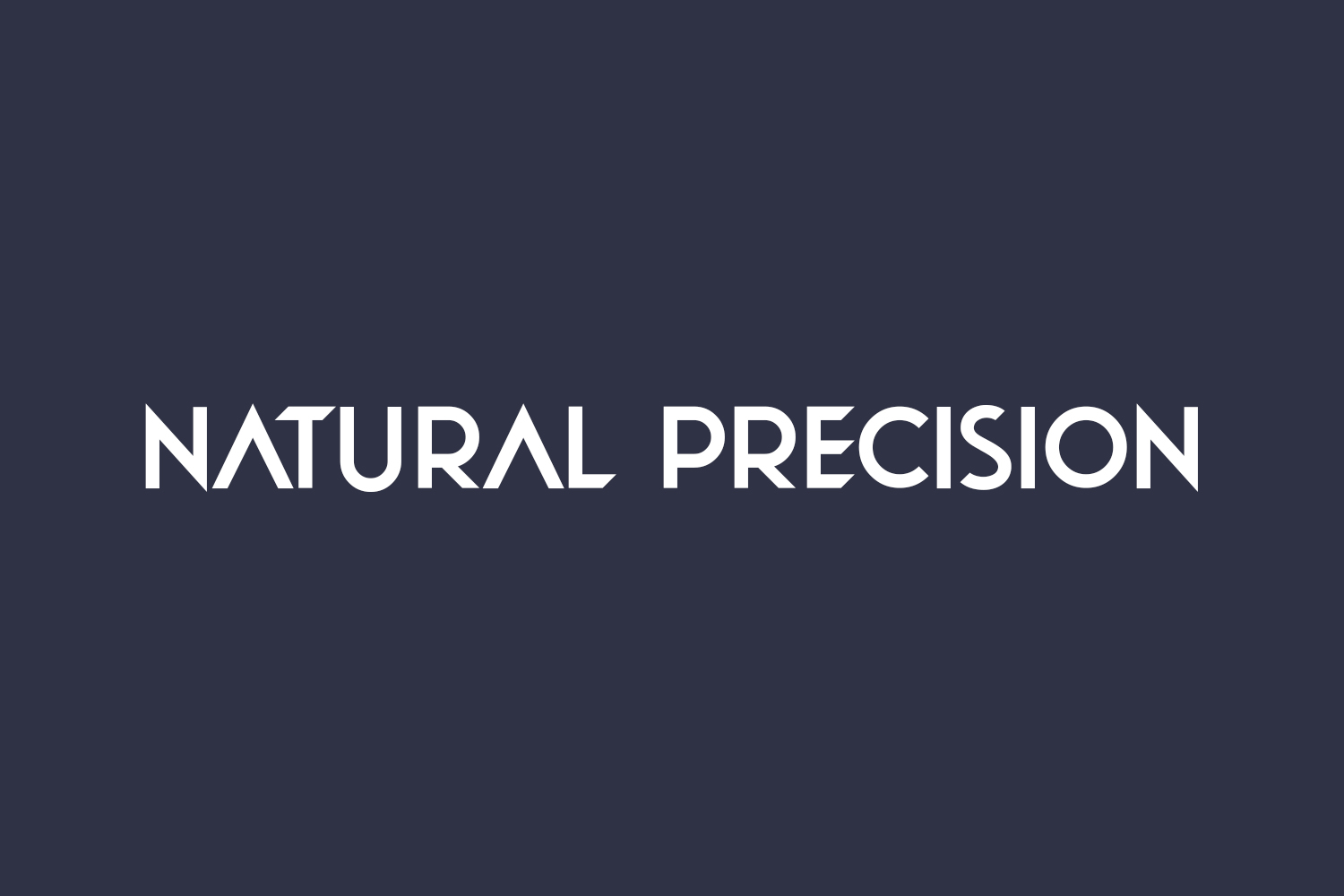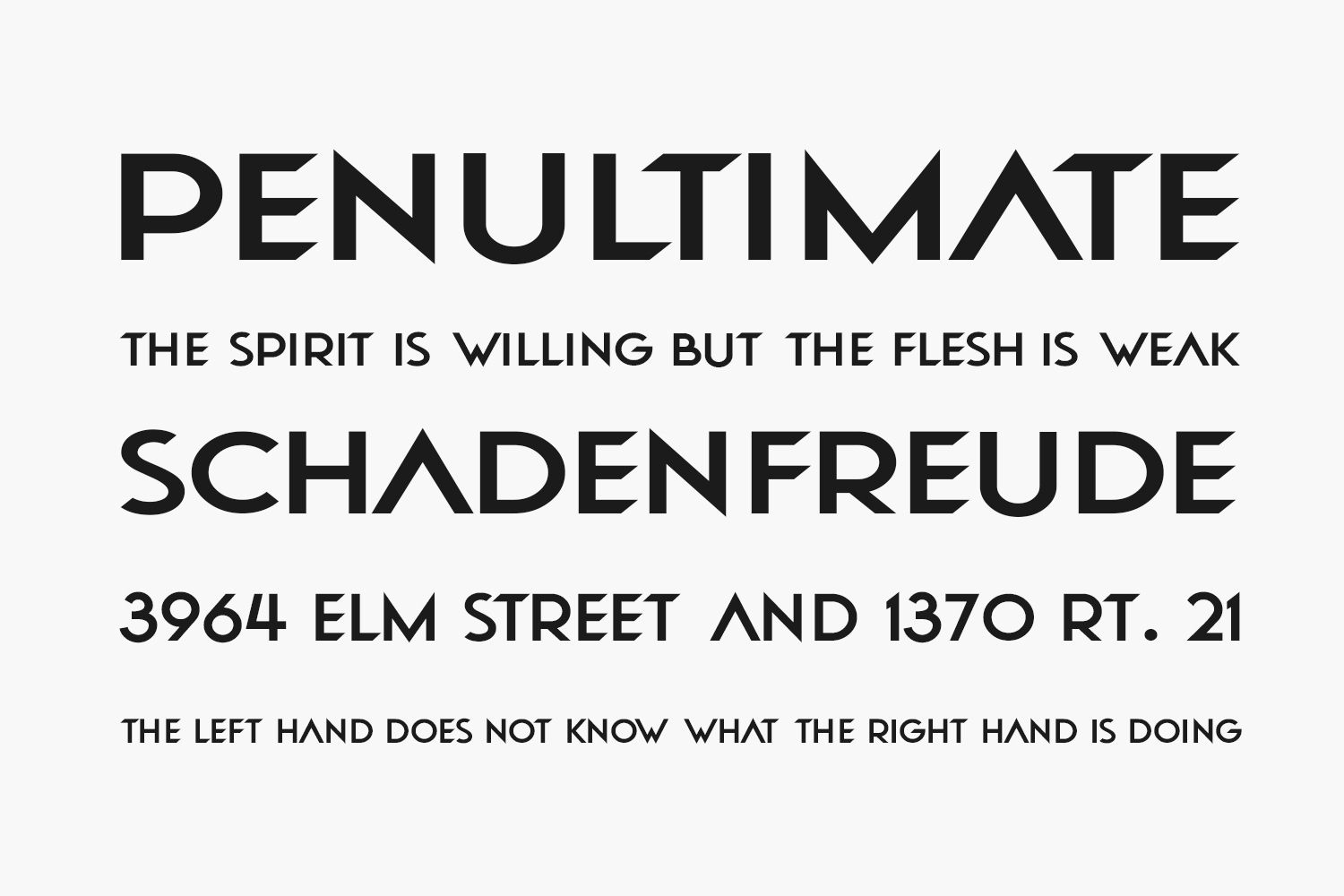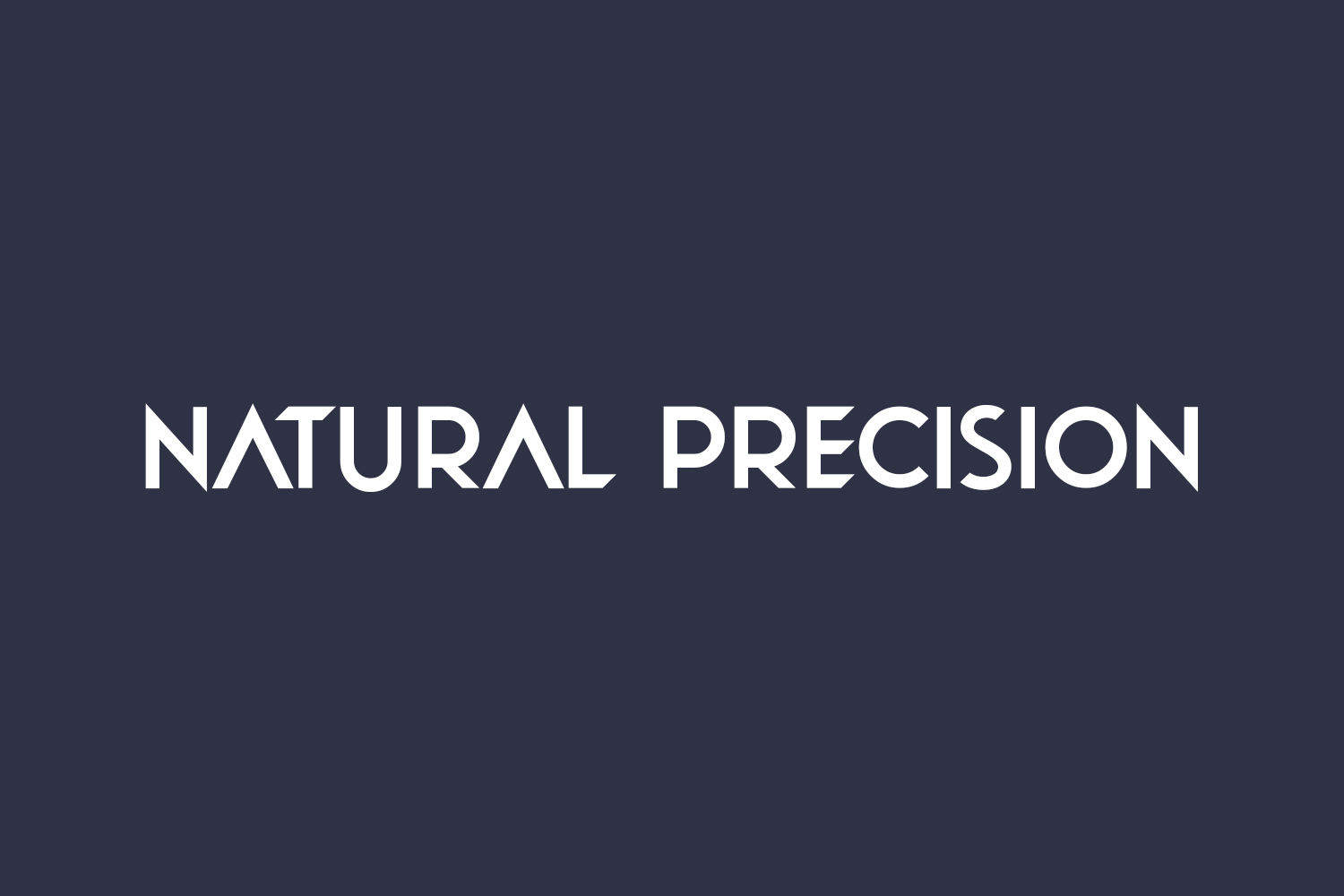
Embrace a sleek, contemporary sans-serif Natural Precision Free Font Family with a crisp, luxurious allure. Ideal for high-tech themes, fashion headlines, and any visually captivating applications. Natural Precision Free Font Family is free for personal use only. Please purchase the full version for commercial use.
Natural Precision Regular The quick brown fox jumps over the lazy dog
Natural Precision Italic The quick brown fox jumps over the lazy dog